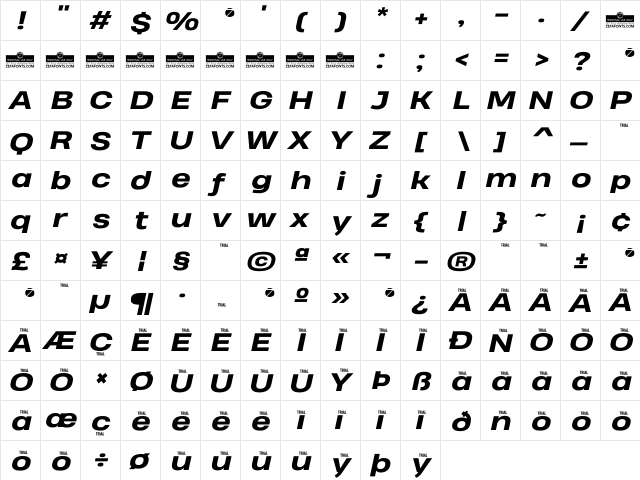
Heading Pro Wide Trial ExtraBold Italic
| Foundry | Studio Kmzero & Zetafonts |
| Designer | Francesco Canovaro |
Design Context for Heading Pro Wide Trial Typeface
Heading Pro Wide Trial is a composed and adaptable typeface that performs quietly and consistently across a wide range of design contexts. The dynamic lean of this cut emphasises speed and emphasis in any layout. Its bold stroke weight gives it real presence on the page.
Pro Tip: Use Heading Pro Wide Trial for emphasis, pull quotes, and subheadings where its slanted energy can add rhythm to the layout.